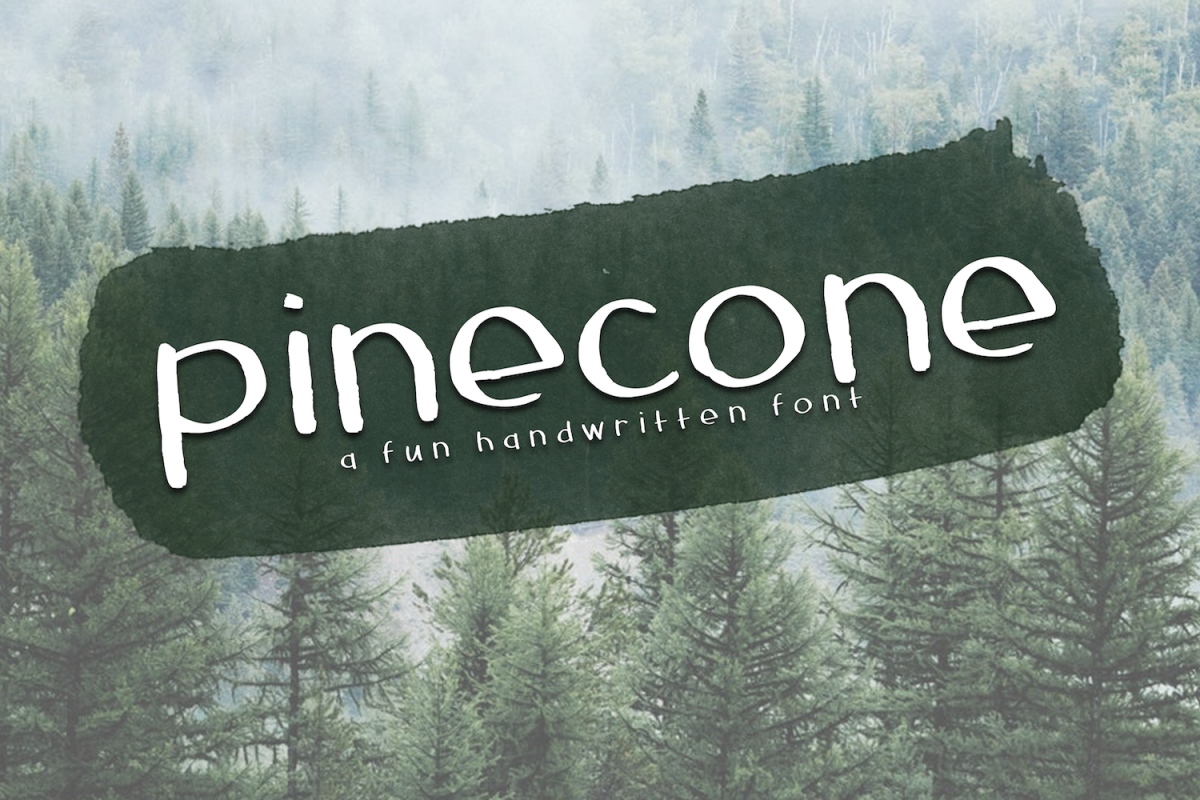
Pinecone - A Rough Handwritten Font
Pinecone
Pinecone is a fun and "outdoorsy" handwritten font.
This font is perfect for quotes, headings, blogs, logos, invitations and more!